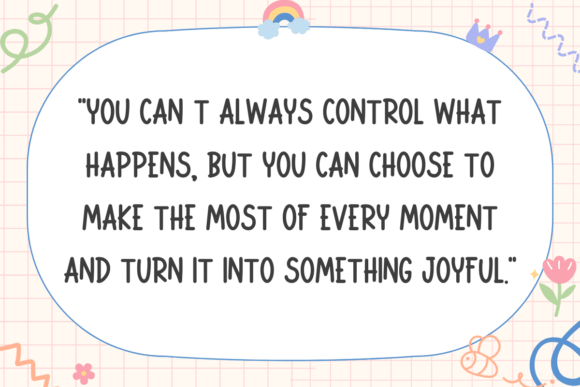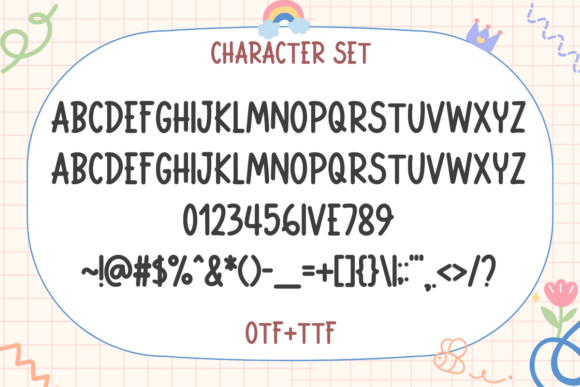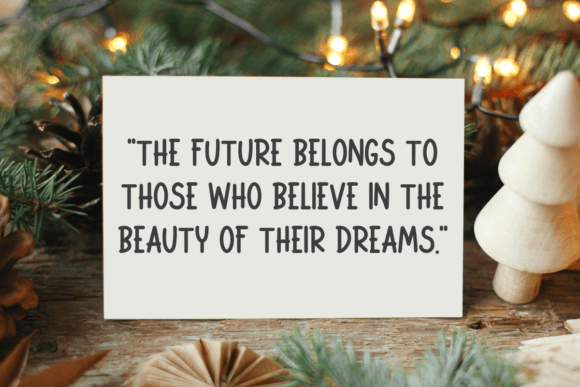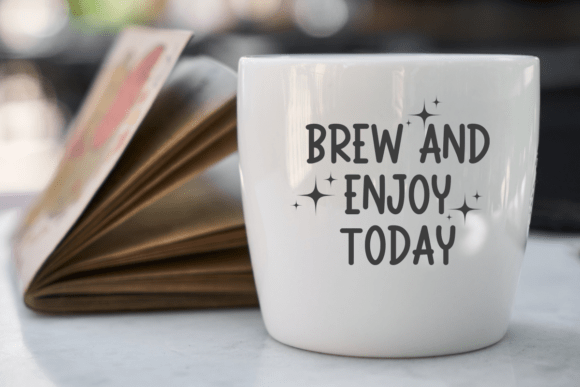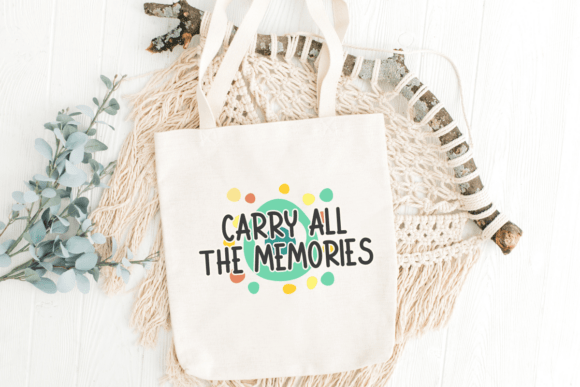
The Festive Chaotic Font: A Fun and Playful Addition to Your Design Arsenal
I’ll never forget the time I was working on a last-minute Christmas card project for a client, and I just couldn’t find the right font to match the playful, whimsical vibe they wanted. I scoured the internet, tried out dozens of fonts, but nothing seemed quite right. That was until I stumbled upon the Festive Chaotic font. It was like a breath of fresh air – fun, playful, and perfectly imperfect. In this article, I’ll share my experience with this fantastic font, its features, and how you can make the most of it in your designs.
An Honest Review of Festive Chaotic
• ✨ The playful, handwritten style that’s perfect for crafts, planners, and DIY projects
• ✅ The font’s cute and friendly vibe works great for a variety of design applications, from greeting cards to stickers
• 🎉 It’s a great fit for Cricut, sublimation, and other creative projects that require a fun, personalized touch
• 💻 The font is easy to read and works well in both digital and print formats
While Festive Chaotic is an amazing font, there are a few things to keep in mind:
• 🤔 The font can be a bit quirky, with some letters and glyphs that might not be immediately recognizable
• ⚠️ As with any handwritten font, it may not be the best choice for very formal or professional designs
3. Experiment with the font’s OpenType features, such as glyphs and stylistic alternates, to add some extra flair to your design
The Story Behind Festive Chaotic
Festive Chaotic was designed with one goal in mind: to create a fun, playful font that’s perfect for crafts, planners, and DIY projects. The designer, a creative and crafty individual, wanted to create a font that would inspire makers and designers to add a personal touch to their work. With its cute and friendly style, Festive Chaotic is sure to bring a smile to anyone’s face.
Q: Is Festive Chaotic suitable for digital and print designs?
A: Yes, Festive Chaotic is a versatile font that works well in both digital and print formats. However, keep in mind that it may appear differently on screen versus in print, so always test it before finalizing your design.